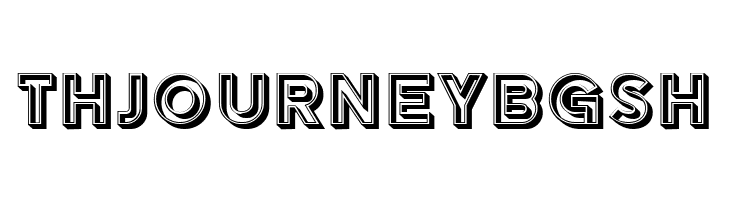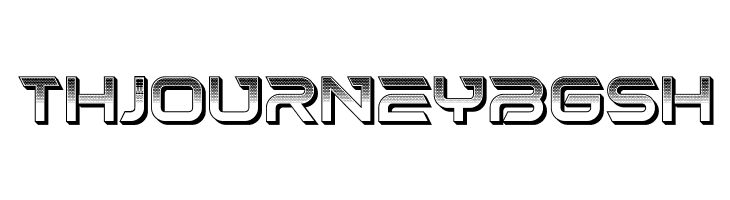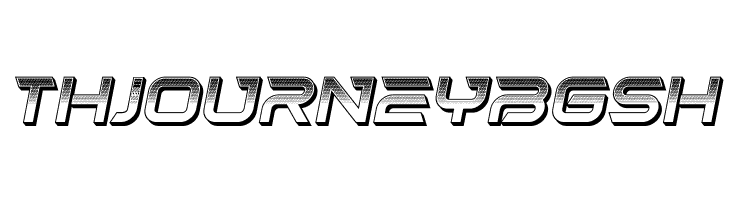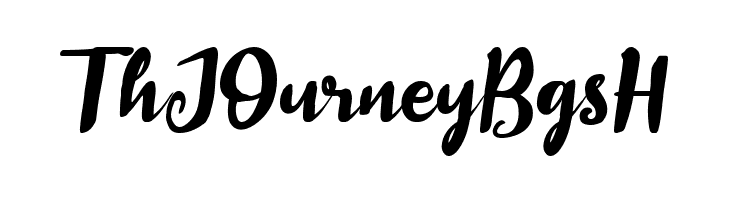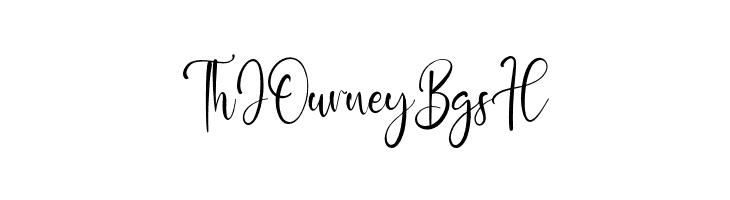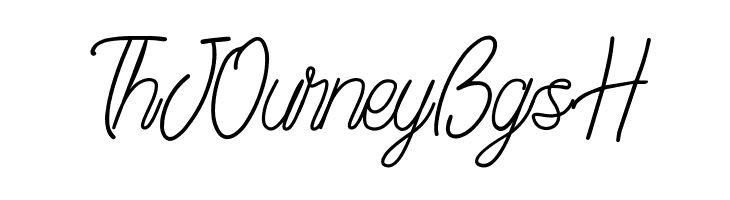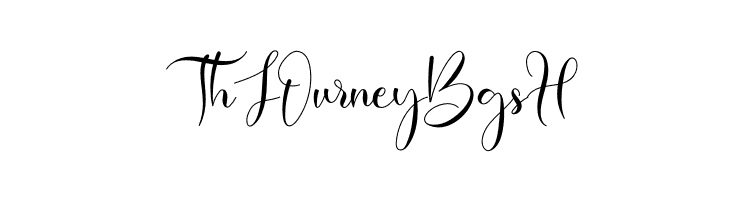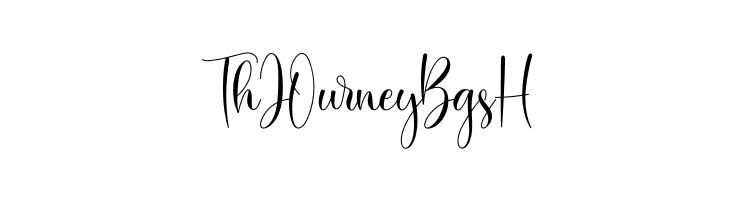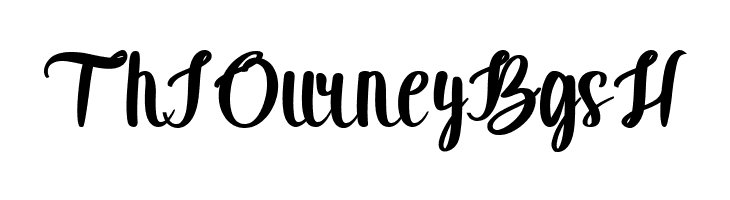
A modern, elegant script font with flowing, cursive characters.
A flowing, cursive font with elegant, interconnected strokes.
A bold, expressive script font with flowing, cursive letters.
A bold, expressive font with a hand-painted, brush-like appearance.
A bold, flowing script font with elegant curves and playful flourishes.
A bold, geometric font with a 3D effect and vintage-modern appeal.
A bold, italicized font with a futuristic, three-dimensional effect.
A bold, futuristic font with a 3D effect and geometric styling.
A playful and elegant cursive font with flowing, slender characters.
A graceful and elegant handwritten script with flowing, interconnected letterforms.